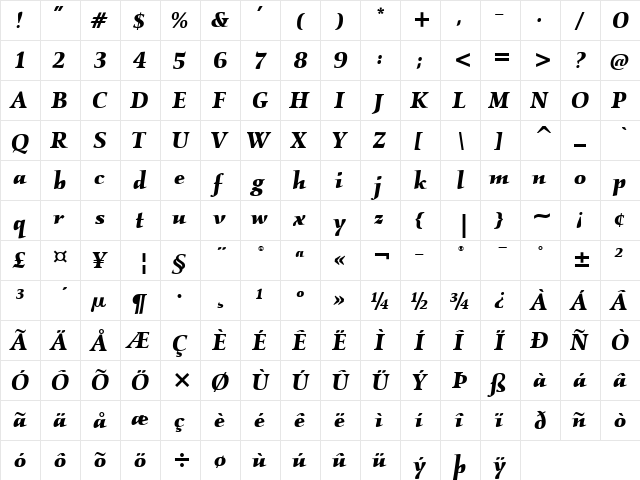
Kallos ITC Bold Italic
Design Context for Kallos ITC Typeface
Kallos ITC is a composed and adaptable typeface that performs quietly and consistently across a wide range of design contexts. The slanted form adds forward momentum and visual energy. Its bold stroke weight gives it real presence on the page.